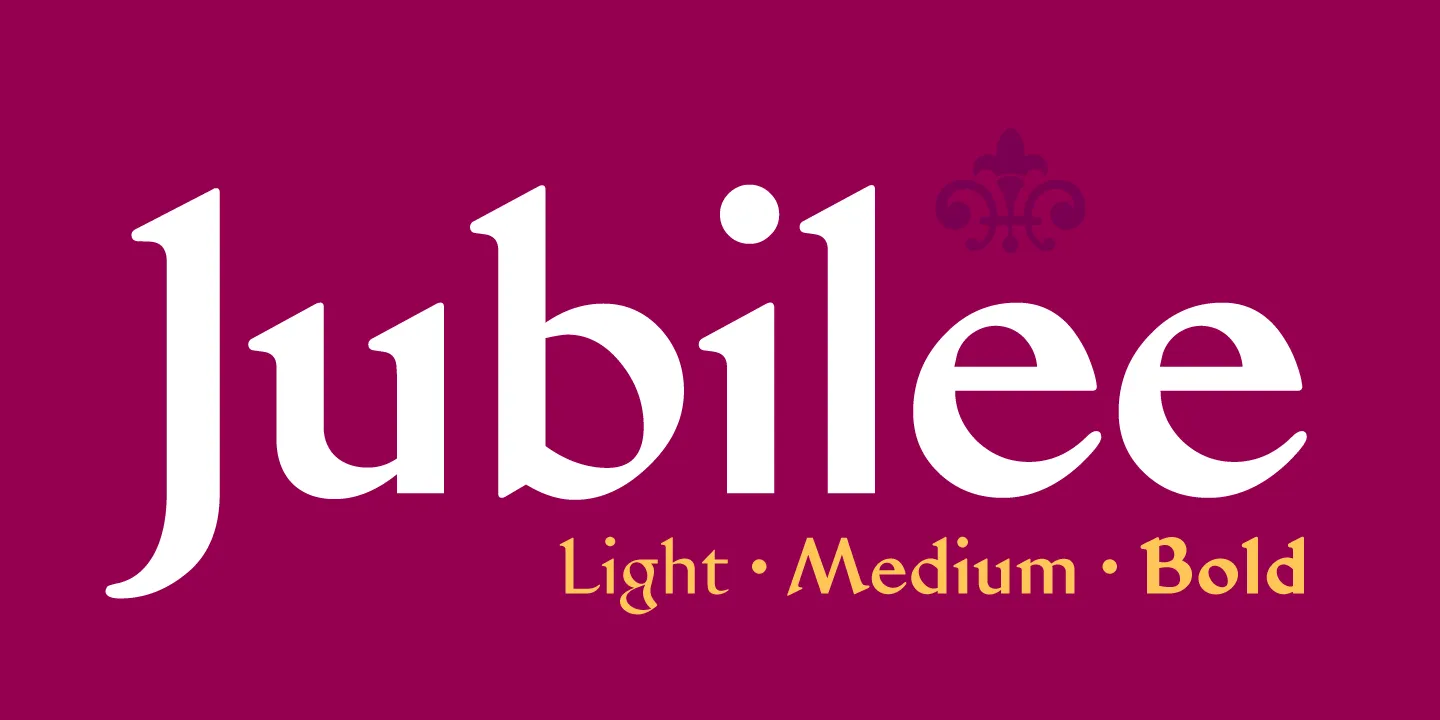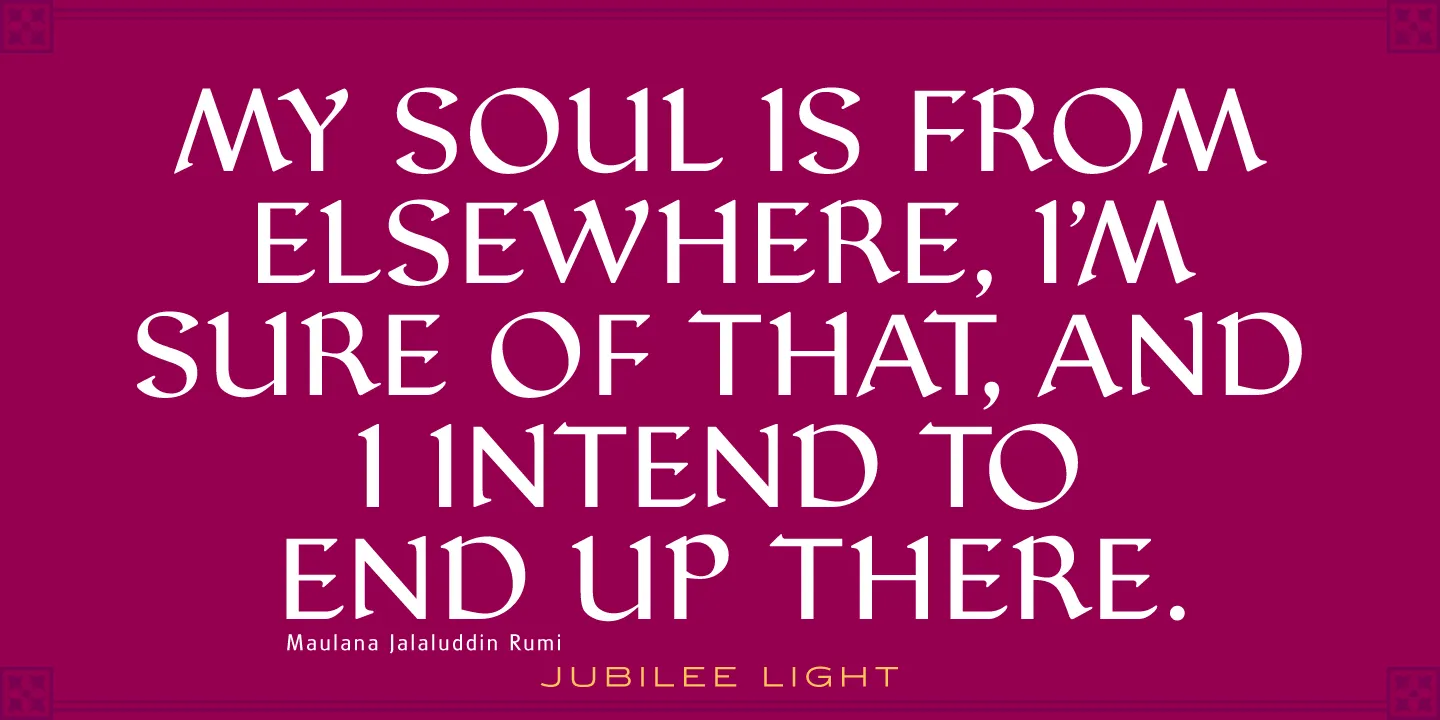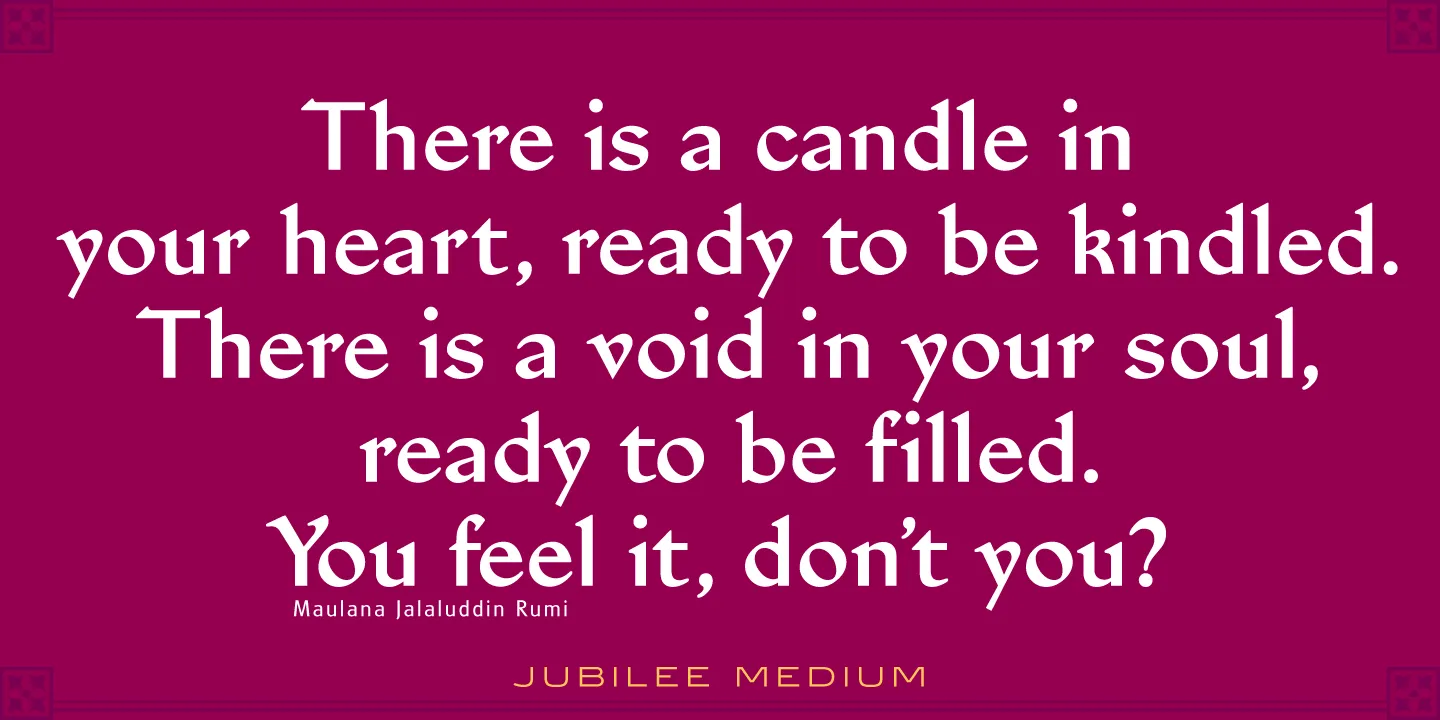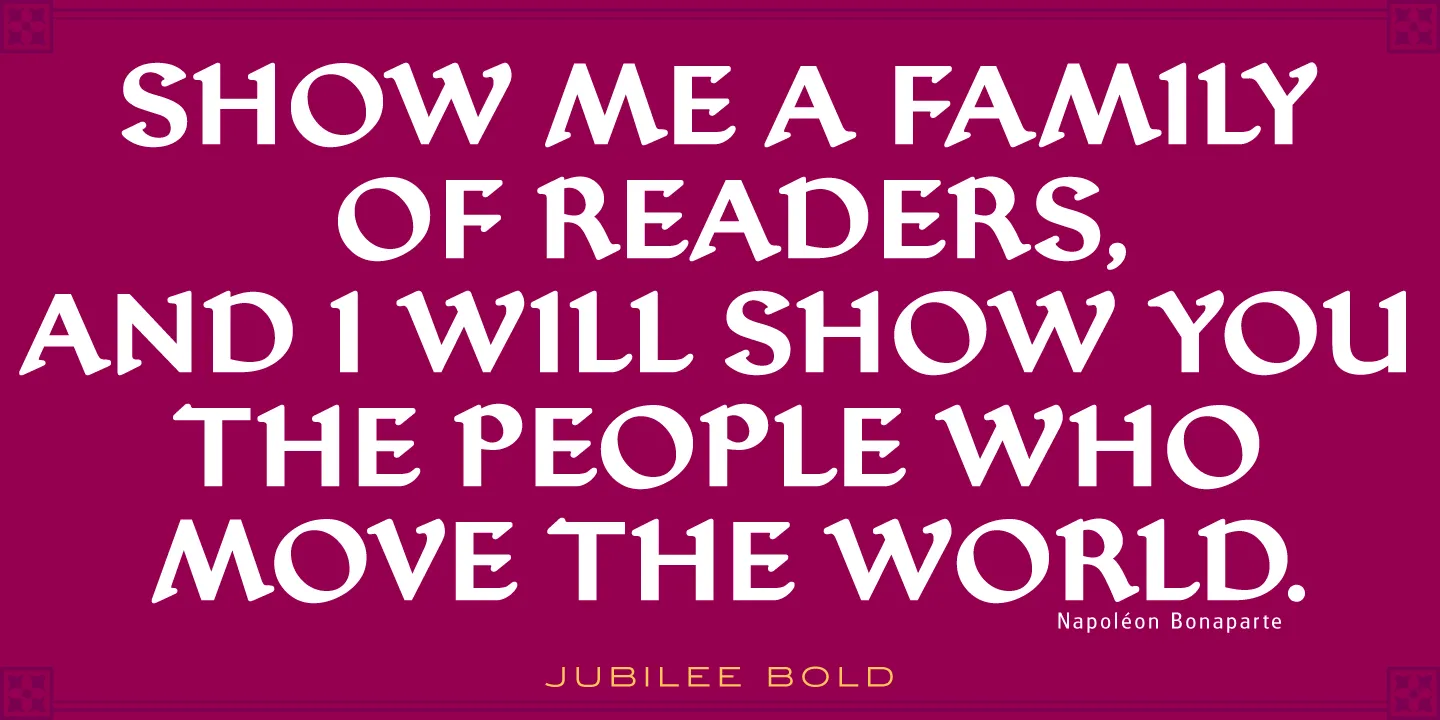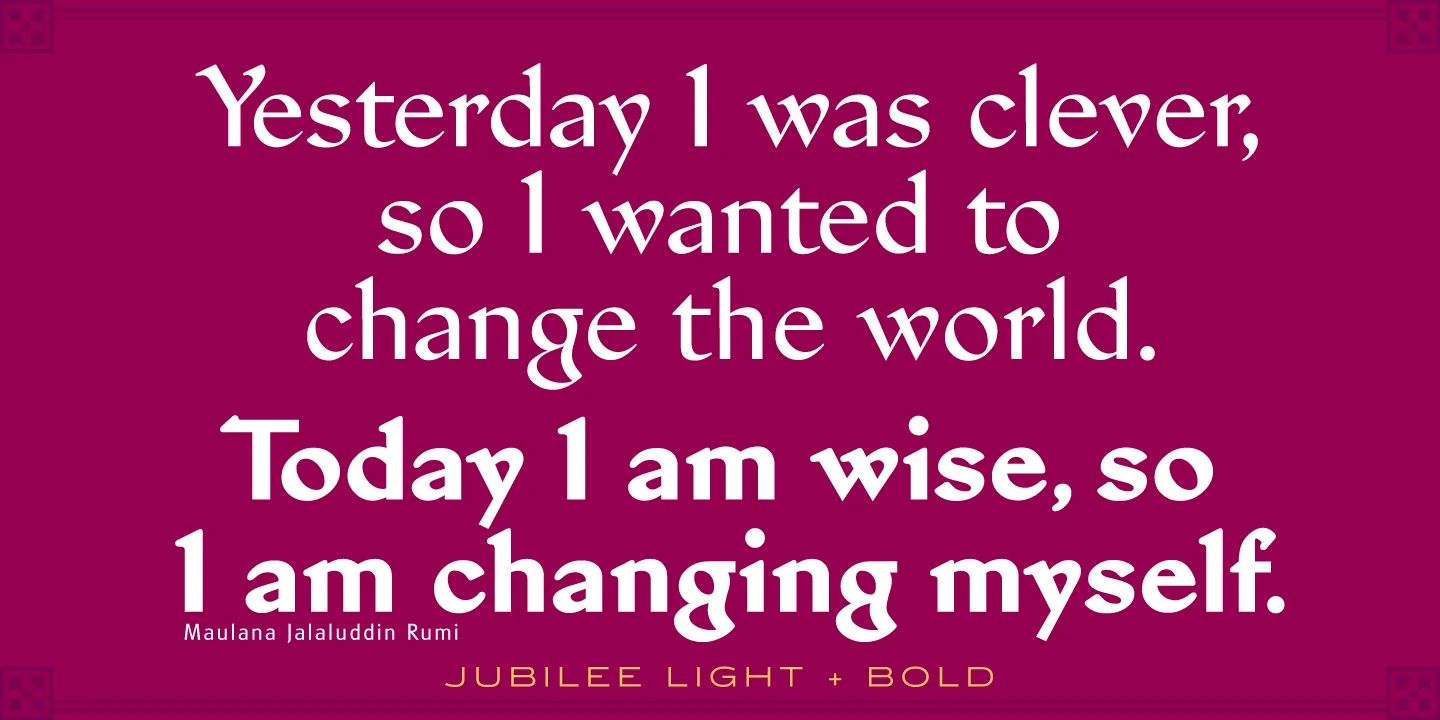
Jubilee Font Family
Jubilee is a glyphic font family with moderate stress, slightly inclined serifs, and storied history. Its original design was created in 1934 by famous English type designer Eric Gill for the Stephenson Blake type foundry. The development name was “Gill Text,” but this was changed to “Cunard” once the famous steamship company showed interest in using the typeface. The company, however, decided not to utilize it. Stephenson Blake changed the name to Jubilee in 1935 to commemorate George V and Queen Mary’s Silver Jubilee Wedding Anniversary announcement. After International TypeFounders, Inc. acquired the exclusive rights to the Stephenson Blake collection, Paul Hickson (P&P Hickson) and Steve Jackaman (ITF) revived the family exclusively for the Red Rooster Collection in 1994. A new, Medium weight was created to accompany the original Light and Bold weights. Jubilee has an inscribed, Renaissance feel, and performs well at all sizes. Its letterforms are sturdy, yet there is an undeniable delicacy to the face.